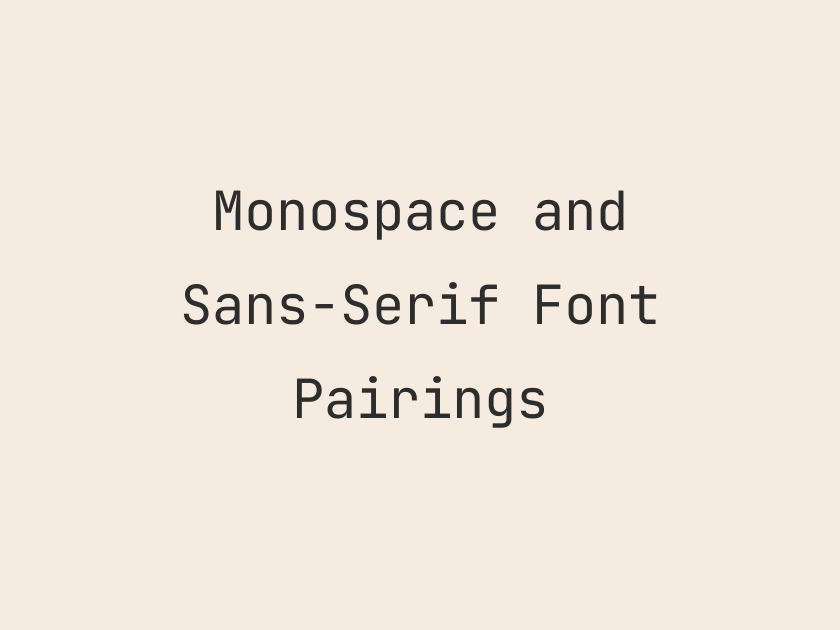
11 Best Monospace and Sans-Serif Font Pairings
Pairing a monospace font with a sans-serif is one of the most reliable moves in modern typography, especially for technical products, developer tools, and portfolios that want a structured, engineered feel without losing readability. The trick is balancing the mechanical rhythm of fixed-width letterforms against the natural flow of a humanist or grotesque sans. These Google Fonts pairings lean on shared origins, matching x-heights, or deliberate contrast to make that balance work.
1. JetBrains Mono + Inter
Built for Developers
Clean, neutral body text that lets code samples and headlines do the talking.
JetBrains Mono was designed specifically to improve code legibility, with wide characters and clear distinction between similar glyphs, and it sets a confident technical tone as a heading font. Inter’s neutrality and generous spacing keep long paragraphs comfortable underneath it, which is why the combination shows up so often in developer documentation and SaaS interfaces.
2. Space Grotesk + Space Mono
Retro Futurist Branding
Quirky proportions and rounded details keep this pairing warm instead of clinical.
Space Grotesk and Space Mono share a family name for good reason: both come from the same design lineage with matching quirks in their curves and terminals. That shared personality makes this one of the easiest monospace and sans-serif combinations to trust, especially for playful tech startups or product launches that want character without chaos.
3. IBM Plex Sans + IBM Plex Mono
Systematic Design Thinking
Part of a true superfamily, engineered to share proportions and rhythm across weights.
IBM commissioned the Plex family as a coordinated system, so Plex Sans and Plex Mono already share stroke contrast, x-height, and overall structure. Using them together removes the guesswork entirely, and the result reads as disciplined and corporate without feeling stiff, ideal for engineering blogs or enterprise dashboards.
4. Archivo + Roboto Mono
Bold Grotesque Headlines
A rounder, friendlier mono that softens the edge of a heavier display face.
Archivo’s tight spacing and grotesque confidence make it a strong anchor for large headlines, while Roboto Mono’s slightly rounded terminals prevent the body copy from feeling too rigid. This pairing suits data-heavy sites and technical marketing pages that still need approachable text.
5. Noto Sans + Source Code Pro
Reliable, Readable Interfaces
A tidy, functional mono that keeps interface text easy to scan.
Source Code Pro
Noto Sans offers a neutral, highly legible structure that pairs comfortably with the crisp, functional letterforms of Source Code Pro, giving the combination a clean, no-nonsense feel even though the two fonts come from different design teams. It is a dependable choice for style guides, API documentation, and any product where consistency matters more than novelty.
6. DM Sans + DM Mono
Geometric and Efficient
A low-contrast companion mono that keeps paragraphs light on the page.
DM Mono
Both fonts come from the same design system, sharing a geometric skeleton that keeps headlines and body text visually related even though one is fixed-width. The pairing feels understated and modern, well suited to product landing pages and minimalist portfolios.
7. Work Sans + IBM Plex Mono
Warm Editorial Voice
A technical texture underneath a humanist headline creates useful friction.
Work Sans brings a humanist warmth that softens the otherwise mechanical feel of a monospace body, and the contrast between the two textures gives the layout a sense of authorship rather than pure automation. This works well for engineering blogs that want to read as written by people, not just generated by tools.
8. Red Hat Display + Red Hat Mono
Corporate Tech Confidence
Red Hat Display
Designed as siblings, these two fonts share proportions across every size.
Red Hat Mono
Like the Plex family, Red Hat Display and Red Hat Mono were built as a coordinated pair, which means kerning, weight, and rhythm all line up without adjustment. The result feels assured and enterprise-ready, a fit for infrastructure products and technical case studies.
9. Manrope + Fira Code
Sleek Geometric Precision
Ligature-friendly code styling brings a distinctive technical flavor to body text.
Fira Code
Manrope’s tight apertures and geometric regularity give headlines a polished, contemporary look, while Fira Code’s distinctive ligatures add personality to any body copy that touches on code or data. The pairing suits developer tool marketing sites where the product itself is the hero.
Tips for pairing monospace and sans-serif fonts
Match x-heights where possible so the two fonts feel like they belong to the same visual family, even when their skeletons differ.
Reserve monospace for shorter stretches of text, such as headlines, labels, or code snippets, and let the sans-serif carry longer paragraphs for comfortable reading.
When in doubt, look for fonts released as part of the same superfamily, since foundries often tune those pairs to share proportions automatically.